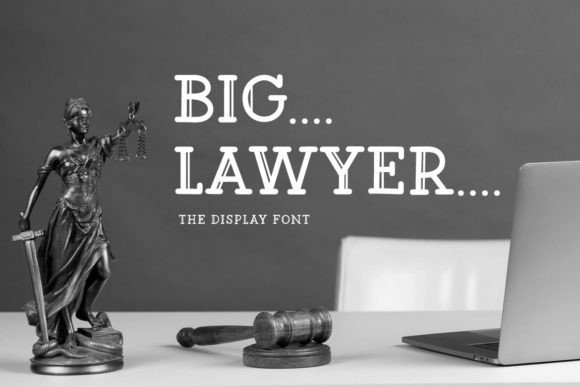
Introducing Big Lawyer Font: The Ultimate Decorative Display Font
In the world of typography, fonts play a crucial role in conveying messages, expressing emotions, and creating visual identities. Among the numerous fonts available, Big Lawyer stands out as a unique and versatile decorative display font. Designed to make a statement, Big Lawyer can be used in a wide range of applications, from comic books and posters to social media content and logo designs. In this article, we’ll explore the features, benefits, and uses of Big Lawyer font, and why it’s an excellent choice for designers, artists, and marketers.
What is Big Lawyer Font?
Big Lawyer is a decorative display font, carefully crafted to add a touch of personality and flair to any design project. Its bold, eye-catching design makes it perfect for headlines, titles, and short texts. The font’s unique style is characterized by its bold lines, sharp edges, and distinctive letterforms, which give it a strong and confident appearance.
Key Features of Big Lawyer Font
- Bold and Eye-Catching: Big Lawyer font is designed to grab attention, making it ideal for headlines, titles, and promotional materials.
- Versatile: This font can be used in various contexts, from digital media to print materials, and from formal to informal designs.
- Unique Style: Big Lawyer’s distinctive letterforms and bold lines set it apart from other fonts, making it a great choice for designers looking for something new and exciting.
- Easy to Read: Despite its bold design, Big Lawyer font is easy to read, even in smaller sizes, making it suitable for a wide range of applications.
Uses of Big Lawyer Font
Big Lawyer font is an incredibly versatile font that can be used in various contexts, including:
- Comic Books and Graphic Novels: Add a bold and dynamic touch to your comic book titles, headings, and text.
- Posters and Flyers: Create eye-catching posters and flyers for events, promotions, or announcements.
- School Projects: Use Big Lawyer font to add a creative and playful touch to school projects, presentations, and reports.
- Book Titles and Covers: Make your book titles and covers stand out with Big Lawyer’s bold and attention-grabbing design.
- Advertisements: Use Big Lawyer font to create bold and effective advertisements for print, digital, or social media campaigns.
- Social Media Content: Add a touch of personality and flair to your social media posts, stories, and captions.
- Logo Design: Use Big Lawyer font to create a bold and memorable logo for your brand, business, or organization.
Benefits of Using Big Lawyer Font
Big Lawyer font offers several benefits to designers, artists, and marketers, including:
- Attention-Grabbing: Big Lawyer font is designed to grab attention, making it perfect for promotional materials, headlines, and titles.
- Versatility: This font can be used in various contexts, from digital media to print materials, and from formal to informal designs.
- Creativity: Big Lawyer font’s unique style and bold design make it an excellent choice for designers looking to add a creative touch to their projects.
- Legibility: Despite its bold design, Big Lawyer font is easy to read, even in smaller sizes, making it suitable for a wide range of applications.
Tips for Using Big Lawyer Font
To get the most out of Big Lawyer font, follow these tips:
- Use it Sparingly: Big Lawyer font is bold and attention-grabbing, so use it sparingly to avoid overwhelming your design.
- Pair it with Other Fonts: Combine Big Lawyer font with other fonts to create a unique and visually appealing design.
- Adjust Font Size: Experiment with different font sizes to find the perfect balance between boldness and readability.
- Experiment with Colors: Try out different colors and gradients to add depth and visual interest to your design.
Big Lawyer font is a versatile and attention-grabbing decorative display font that can elevate your design projects to the next level. With its bold and unique style, Big Lawyer font is perfect for a wide range of applications, from comic books and posters to social media content and logo designs. By following the tips outlined in this article, you can unlock the full potential of Big Lawyer font and create stunning designs that capture attention and leave a lasting impression.